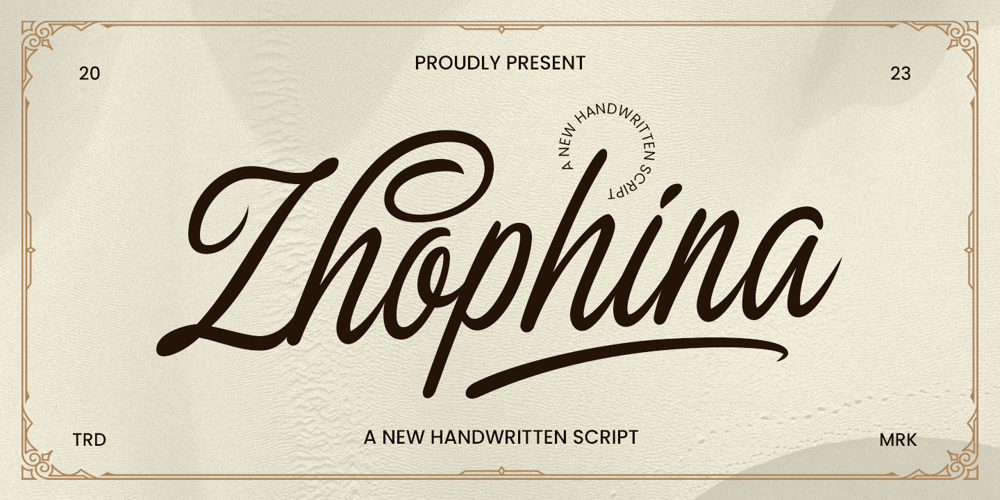
Zophina Font Family was designed by Hendry Juanda and published by Letterhend. Zophina contains 1 styles and family package options. Say hello to The Zophina, a new handwritten script font that perfectly balances casual style with a hint of femininity. With its effortless charm and carefully crafted ligatures, this font is ideal for adding a touch of elegance and personality to any project, especially in various formal forms such as invitations, labels, logos, magazines, books, greeting / wedding cards, packaging, fashion, make up, stationery, novels, labels or any type of advertising purpose.Features : Uppercase & lowercase Numbers and punctuation Alternates & Ligatures Multilingual PUA encoded We highly recommend using a program that supports OpenType features and Glyphs panels like many of Adobe apps and Corel Draw, so you can see and access all Glyph variations.